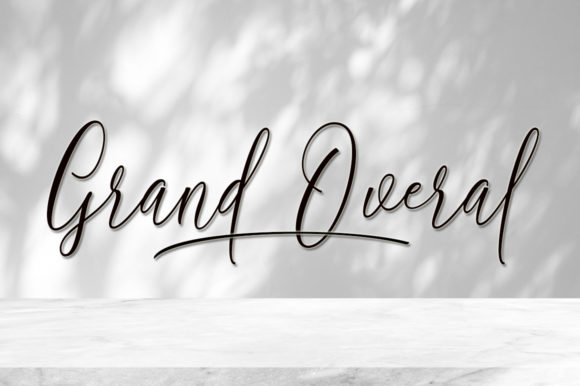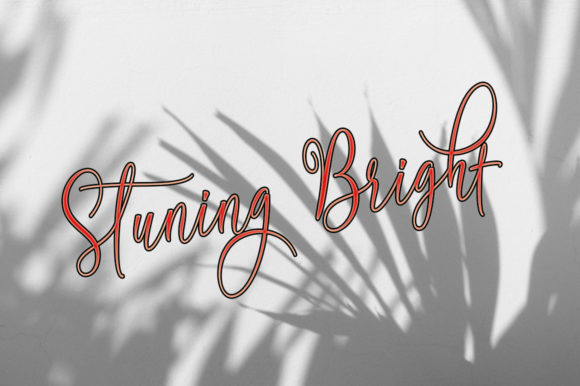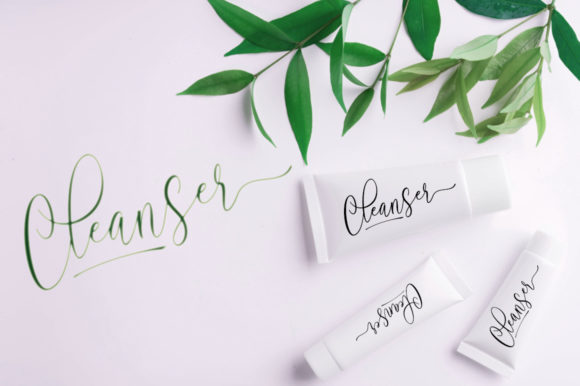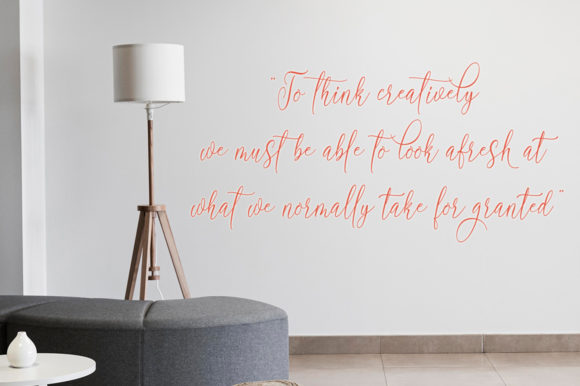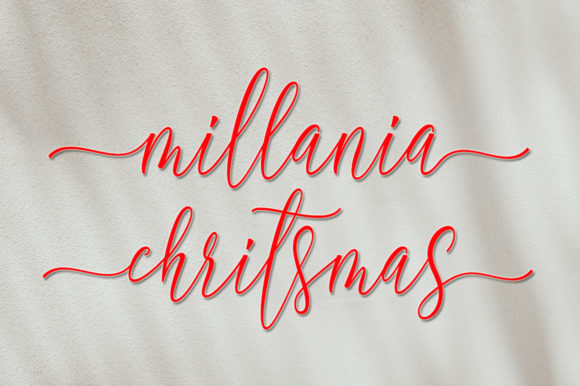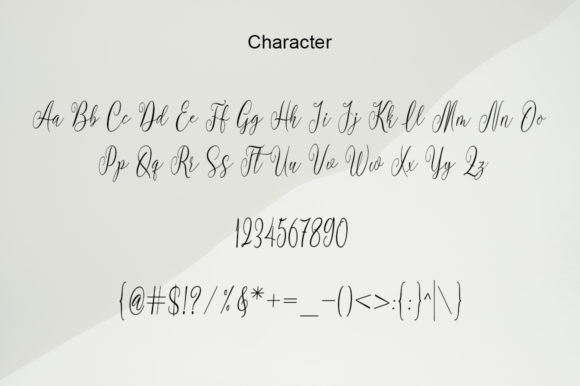
Introducing Blustella Font: The Ultimate Romantic Calligraphy Typeface
Are you a designer or crafter looking for a font that exudes romance and sweetness? Look no further than Blustella Font, a stunning calligraphy typeface that is sure to capture the hearts of your audience. With its unique dancing characters and elegant touch, Blustella is the perfect addition to any design project.
What Makes Blustella Font So Special?
Blustella Font is a romantic and sweet calligraphy typeface that boasts characters that dance along the baseline, giving it a playful yet sophisticated feel. This font is perfect for designers and crafters who want to add a touch of whimsy and elegance to their work. Whether you’re creating wedding invitations, branding materials, or social media graphics, Blustella Font is sure to make your designs stand out.
Key Features of Blustella Font
- Romantic and Sweet: Blustella Font is designed to evoke feelings of love and romance, making it perfect for wedding-related designs, Valentine’s Day promotions, and more.
- Casual yet Elegant: This font strikes the perfect balance between casual and elegant, making it suitable for a wide range of design projects.
- PUA Encoded: Blustella Font is PUA encoded, which means you can access all of the glyphs and swashes with ease. This makes it simple to customize your designs and add unique touches.
- Dancing Characters: The characters in Blustella Font dance along the baseline, adding a playful and whimsical touch to your designs.
Uses for Blustella Font
Blustella Font is incredibly versatile and can be used for a wide range of design projects, including:
- Wedding Invitations: Create beautiful and romantic wedding invitations that set the tone for the big day.
- Branding Materials: Use Blustella Font to create stunning branding materials, such as logos, business cards, and letterheads.
- Social Media Graphics: Add a touch of elegance and sophistication to your social media graphics, including Facebook posts, Instagram stories, and Twitter headers.
- Stationery: Create gorgeous stationery, including notebooks, journals, and greeting cards.
Tips for Using Blustella Font
Blustella Font is a stunning calligraphy typeface that is sure to capture the hearts of designers and crafters alike. With its romantic and sweet feel, casual yet elegant touch, and PUA encoding, this font is perfect for a wide range of design projects. Whether you’re creating wedding invitations, branding materials, or social media graphics, Blustella Font is the perfect addition to your design toolkit.